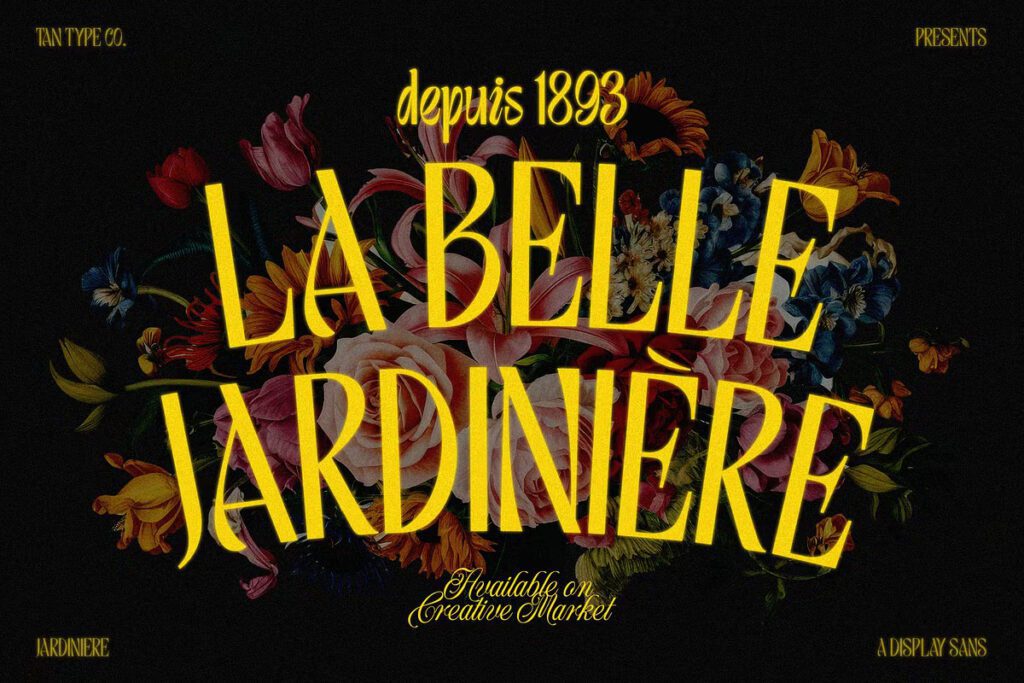
Embrace Mid-Century Elegance with TAN – JARDINIERE
TAN – JARDINIERE is a chic and stylish sans serif font that brings a touch of mid-century charm to your designs. Created by Tan Type Company, this typeface is perfect for designers looking to add a quirky flair to their projects, whether for branding, packaging, or creative content.
Why TAN – JARDINIERE Stands Out
1. Mid-Century Inspiration TAN – JARDINIERE captures the essence of mid-century design, offering a blend of chic style and playful quirkiness. This font is ideal for projects that require a touch of vintage elegance with a modern twist, making it a versatile choice for a wide range of creative applications.
3. Multilingual Support TAN – JARDINIERE comes with full multilingual support, allowing you to create designs that resonate with a global audience. This feature makes it an excellent choice for international branding and communication projects.
5. Versatile Applications The chic and quirky style of TAN – JARDINIERE makes it perfect for a variety of design projects, including branding, packaging, social media graphics, and editorial layouts. Its clean lines and stylish flair ensure that your designs stand out with a sophisticated yet playful aesthetic.
TAN – JARDINIERE is a must-have typeface for designers who want to infuse their projects with mid-century-inspired style and modern versatility. Its chic, quirky flair, combined with high-quality formats and multilingual support, makes it a valuable addition to any design arsenal. Download TAN – JARDINIERE today and start creating designs that effortlessly blend vintage charm with contemporary elegance.